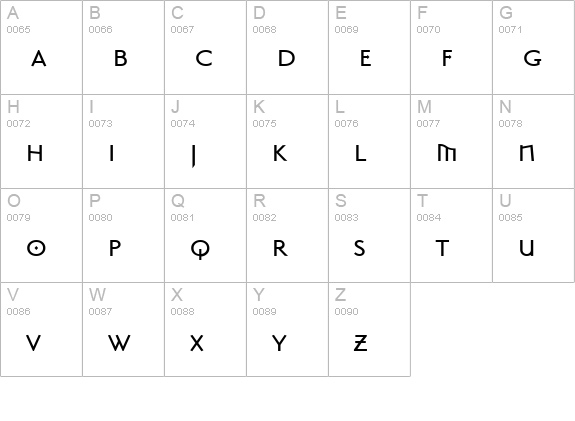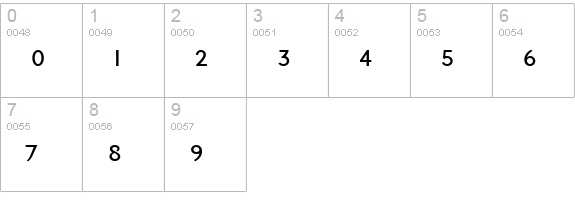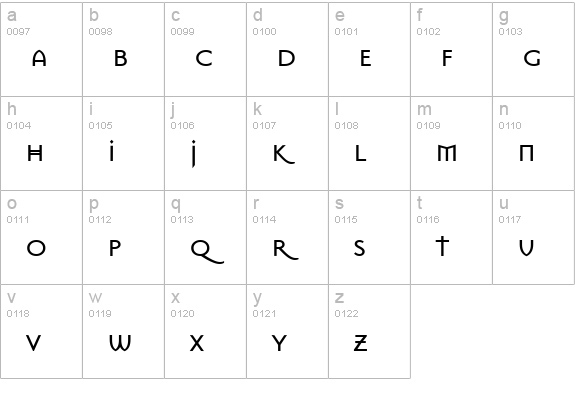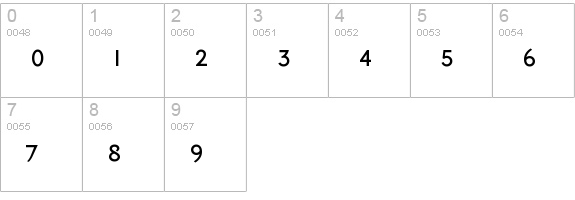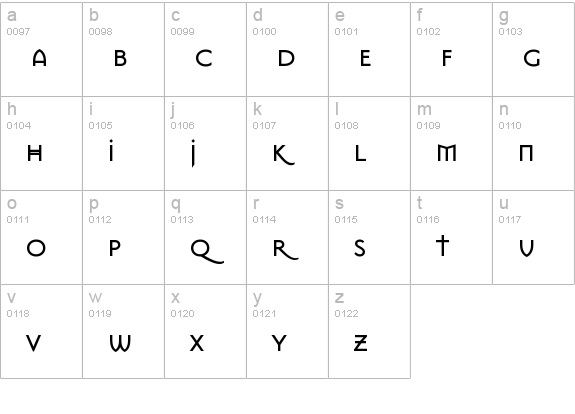
MasonSansSuper Regular Font Details
MasonSansSuper Regular is the standard, neutral variant in the MasonSansSuper typeface family \xE2\x80\x94 well suited to general body text, paragraphs, and standard typographic work.
Introducing MasonSansSuper Regular, a versatile and modern font that effortlessly combines elegance with simplicity. This typeface is perfect for a wide range of design projects, from branding and packaging to web design and advertising. MasonSansSuper Regular offers a clean and legible appearance, making it easy to read both in print and on screen. Its balanced proportions and subtle curves give it a friendly and approachable vibe, while still maintaining a professional and polished look. What sets MasonSansSuper Regular apart is its versatility. Whether you're designing a logo for a tech startup, creating a sleek magazine layout, or crafting an eye-catching social media graphic, this font will adapt seamlessly to your creative vision. The best part? MasonSansSuper Regular is free to download at FontsMarket.com! Yes, you read that right. This stunning font is just a click away, allowing you to elevate your design projects without breaking the bank. It's the perfect choice for budget-conscious designers who don't want to compromise on quality. So, don't miss out on this incredible opportunity. Take advantage of the freedom to enhance your designs with the elegance and simplicity of MasonSansSuper Regular. Head over to FontsMarket.com and download this font today. Your designs deserve the best, and MasonSansSuper Regular delivers.